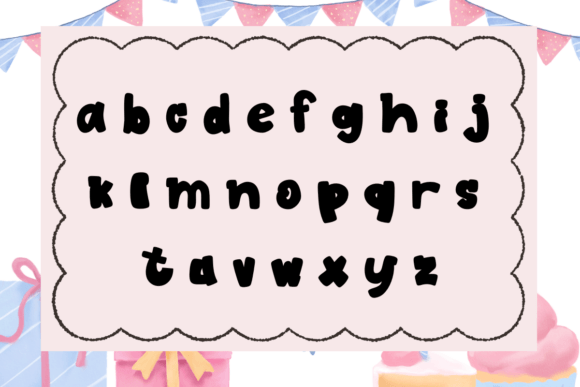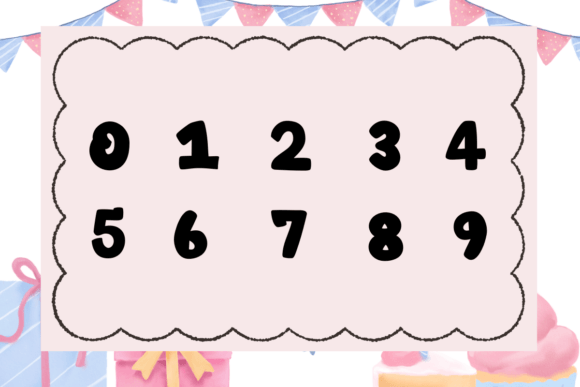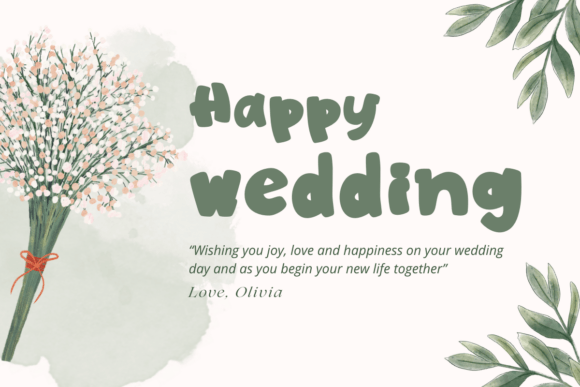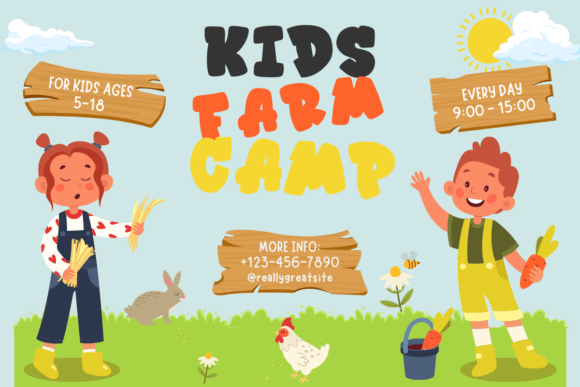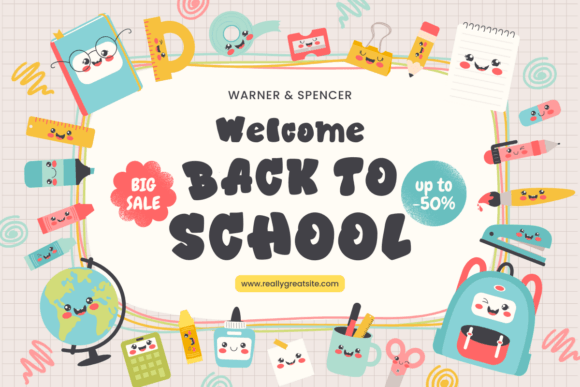
Introducing Happy Birthday Font: The Perfect Handwritten Style for Your Creative Projects
Are you looking for a unique and playful font to add a personal touch to your designs? Look no further than the Happy Birthday font! This charming handwritten font is perfect for a variety of creative projects, from taking notes and writing diary entries to creating greeting cards and more. In this article, we’ll explore the features and benefits of the Happy Birthday font, and show you how to make the most of it in your designs.
What is Happy Birthday Font?
Happy Birthday font is a beautiful handwritten font that is sure to add a touch of warmth and personality to any design. Its playful and whimsical style makes it perfect for a wide range of projects, from casual notes and diary entries to more formal designs like banners, posters, and greeting cards.
Uses for Happy Birthday Font
One of the best things about Happy Birthday font is its versatility. While it’s perfect for handwritten-style notes and diary entries, it can also be used for a wide range of other designs, including:
- Banners: Create eye-catching banners for parties, events, or promotions using Happy Birthday font.
- Content: Add a personal touch to your blog posts, articles, or social media content with this charming font.
- Mugs: Design custom mugs with Happy Birthday font for a unique and thoughtful gift.
- Cards: Create personalized greeting cards for birthdays, holidays, or special occasions.
- Shirts: Design custom t-shirts, hoodies, or tote bags with Happy Birthday font for a fun and stylish look.
- Stationery: Add a touch of elegance to your stationery with Happy Birthday font.
- Social Media Posts: Make your social media posts stand out with this playful and eye-catching font.
Benefits of Using Happy Birthday Font
So why choose Happy Birthday font for your designs? Here are just a few benefits:
- Unique and Playful: Happy Birthday font adds a touch of whimsy and personality to any design.
- Versatile: Use it for a wide range of projects, from casual notes to formal designs.
- Easy to Read: Happy Birthday font is clear and easy to read, making it perfect for designs where legibility is important.
- Customizable: Experiment with different colors, sizes, and styles to make Happy Birthday font your own.
Tips for Using Happy Birthday Font
Here are a few tips for getting the most out of Happy Birthday font:
- Experiment with Colors: Try pairing Happy Birthday font with different colors and backgrounds to create a unique look.
- Mix and Match: Combine Happy Birthday font with other fonts and styles to create a visually interesting design.
- Keep it Simple: Don’t be afraid to keep your design simple and clean – Happy Birthday font can shine on its own.
- Have Fun: Most importantly, have fun and be creative with Happy Birthday font!